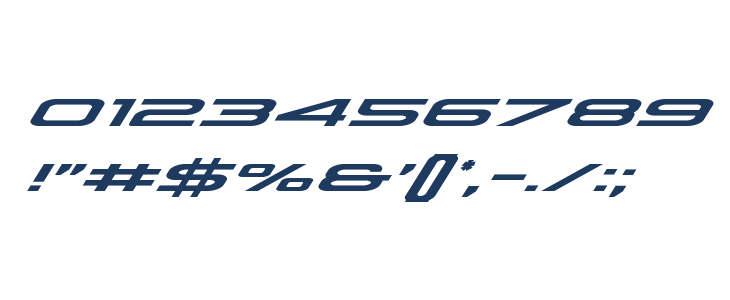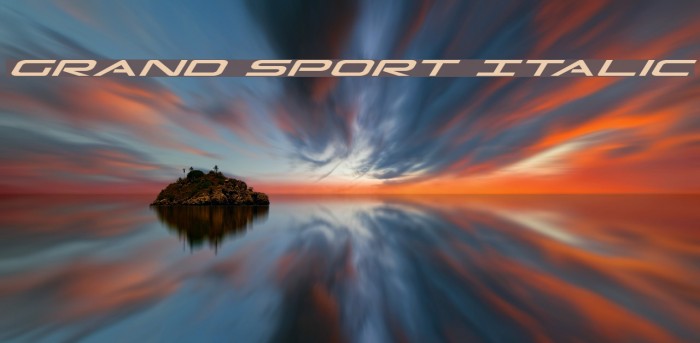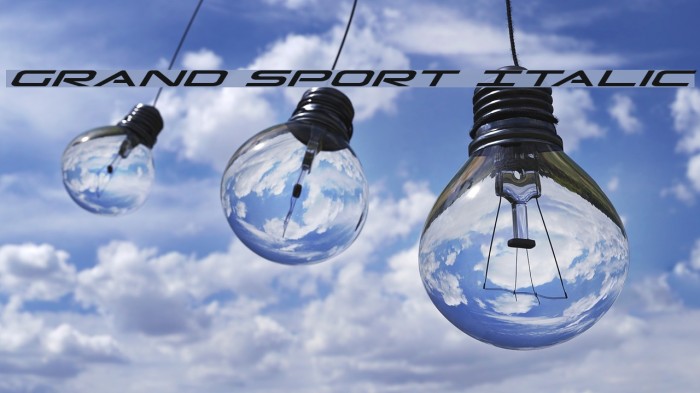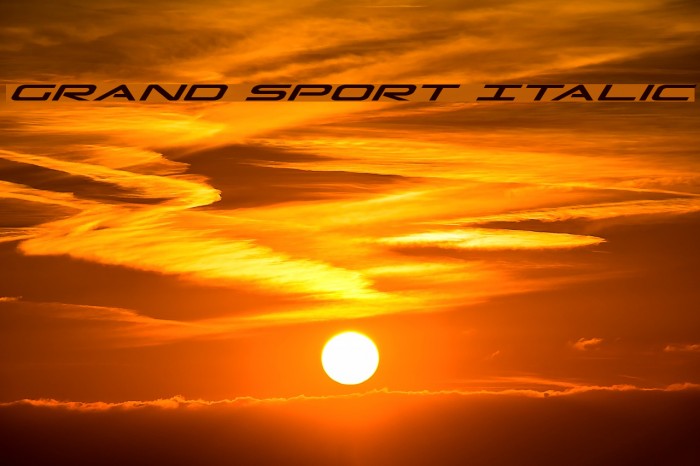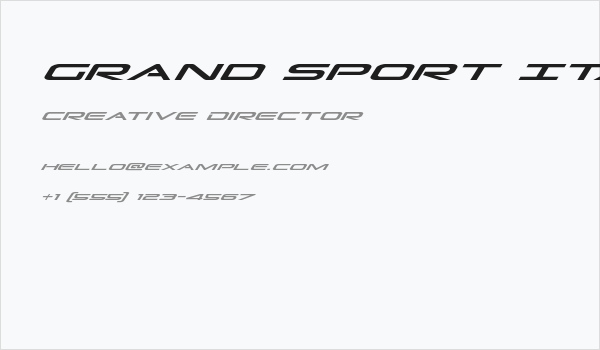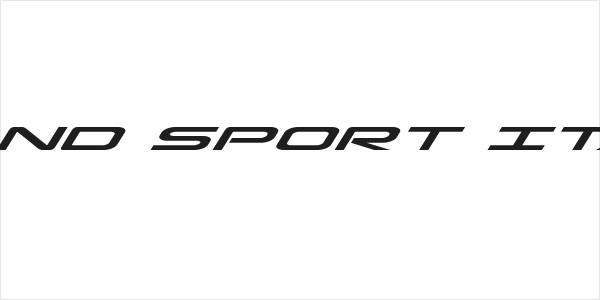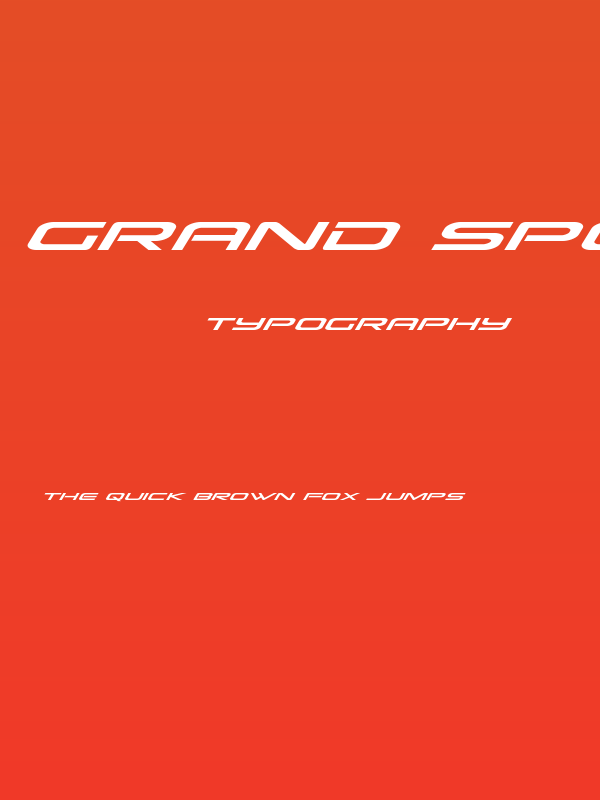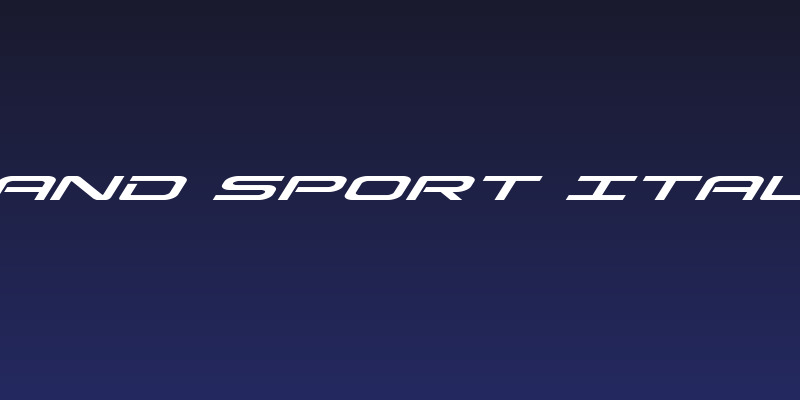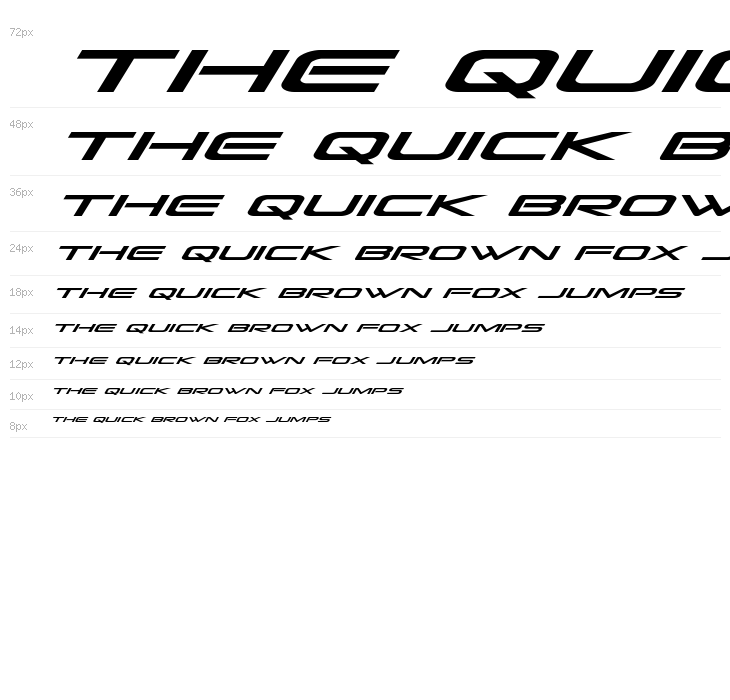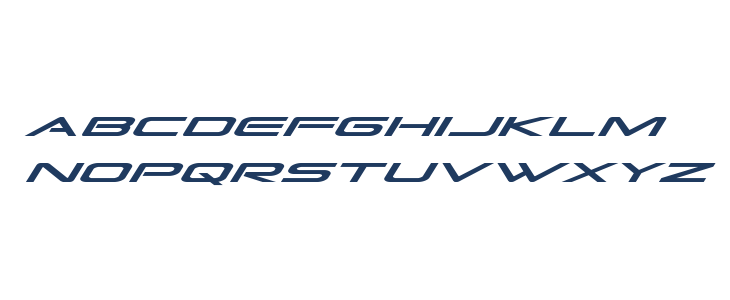
Grand Sport Italic Font
Grand Sport Italic Description
This font features a sleek, italicized design with a modern and sporty aesthetic. The characters are slightly slanted, giving a sense of motion and speed. The strokes are clean and sharp, with a consistent thickness throughout, contributing to a streamlined appearance. The uppercase and lowercase letters maintain a uniform style, enhancing readability while preserving the dynamic look. Numbers and special characters are designed to match the overall theme, ensuring cohesion across all elements. This font is ideal for projects that require a contemporary and energetic feel.
| Proposed Projects | Ideal for sports branding, automotive designs, dynamic posters, and modern advertising campaigns. |